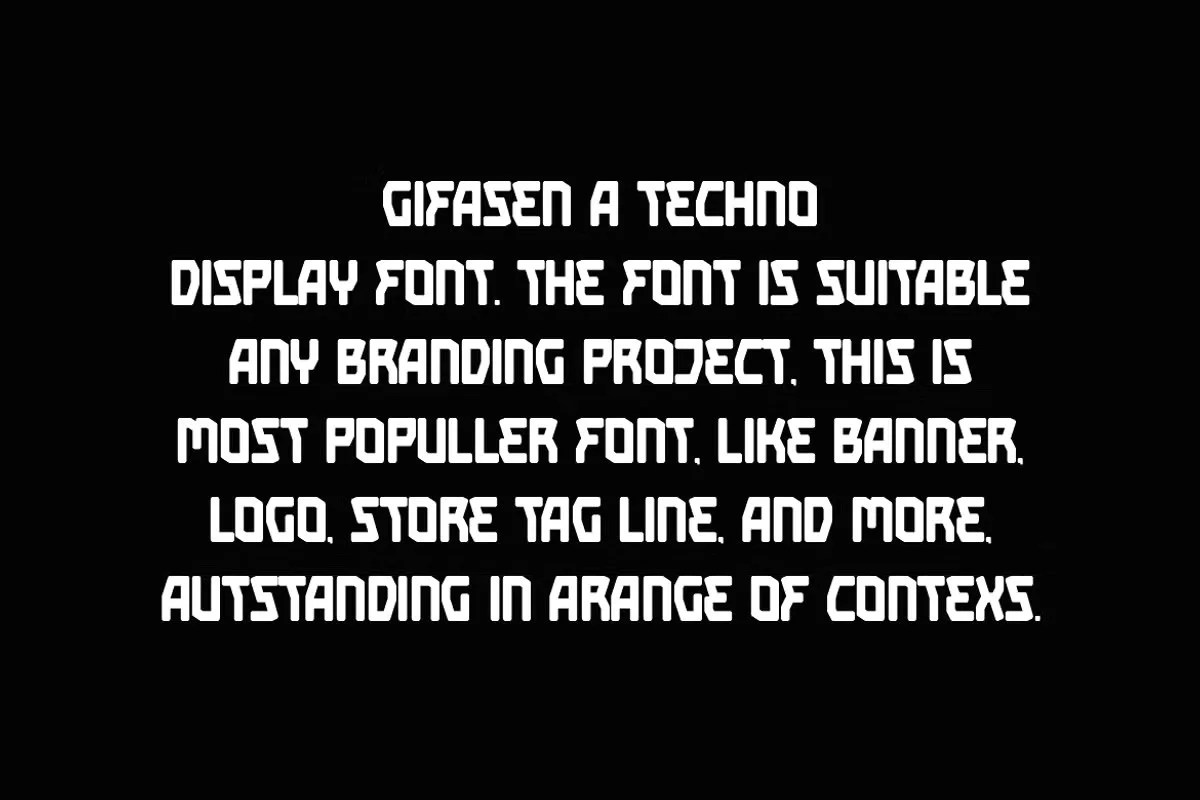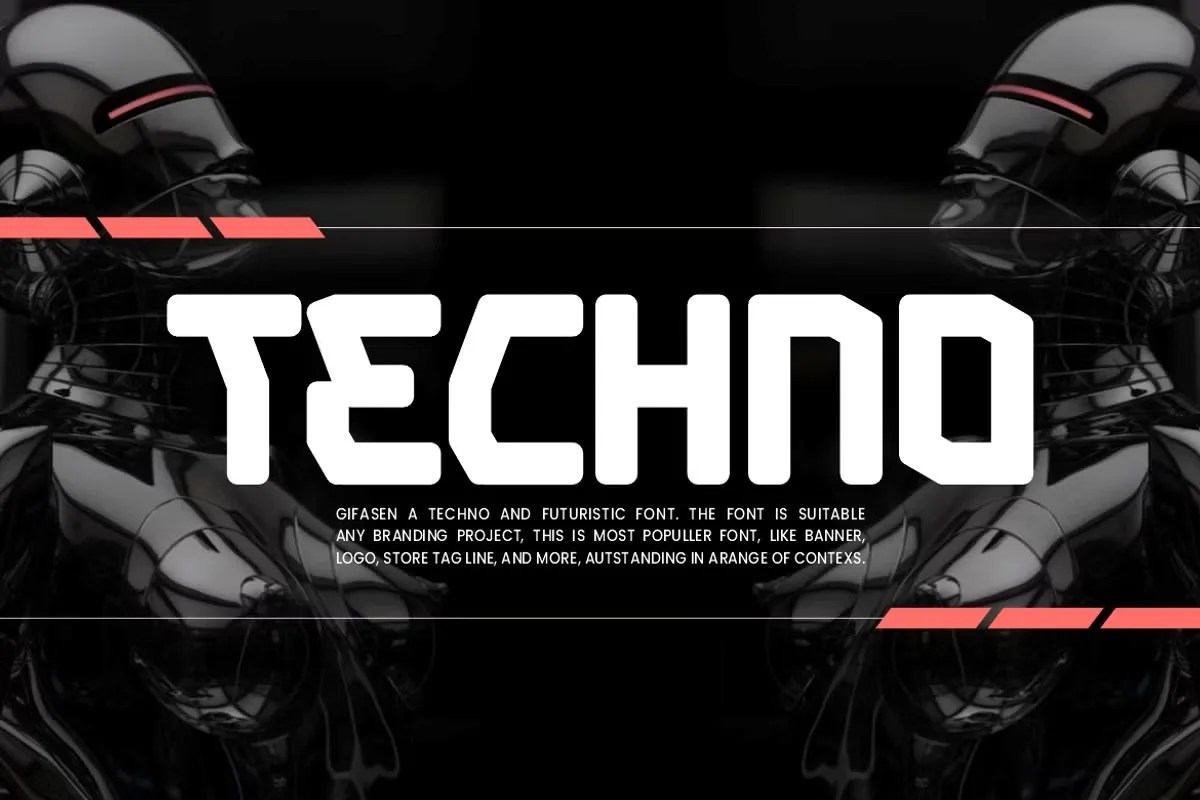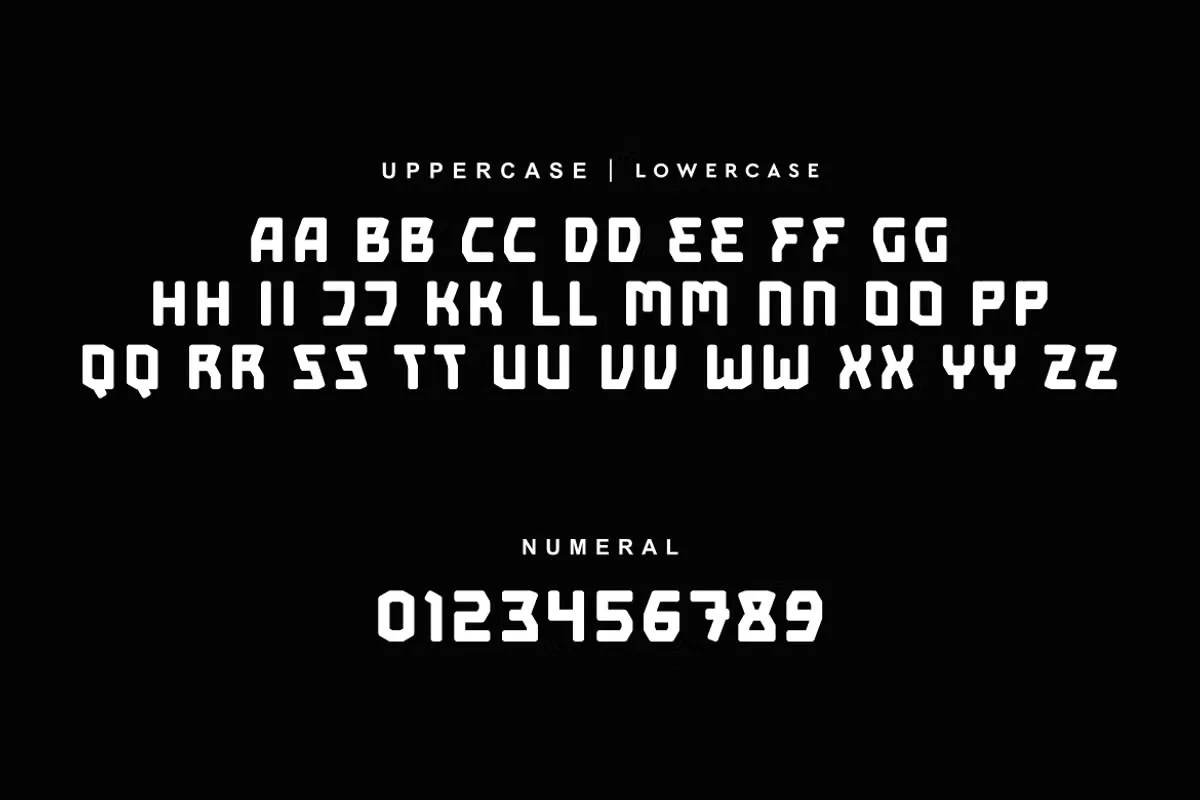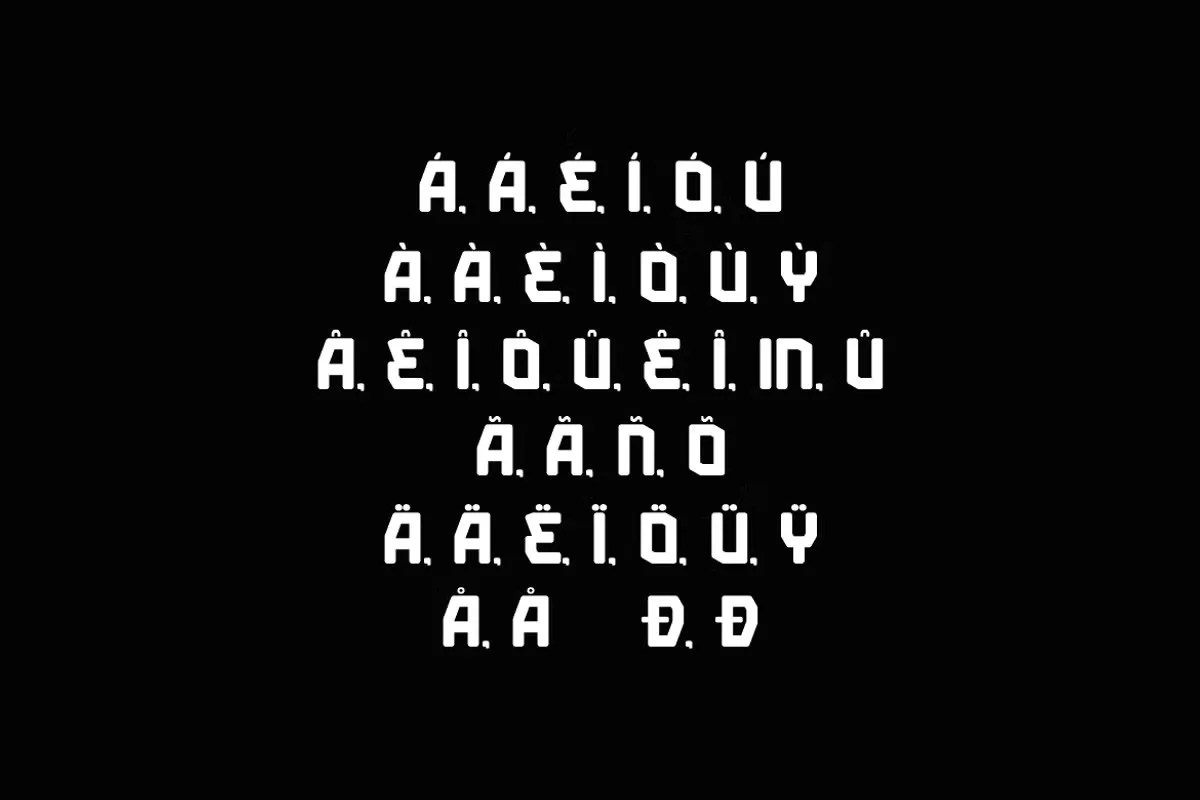
Gifasen by QR Design Studio. This is a clean and professional sans serif font that offers incredible clarity and a timeless, minimalist aesthetic. QR Design Studio created Gifasen for designers who need a reliable and truly versatile typeface. The font communicates with quiet confidence. It works perfectly for a wide range of corporate and creative applications, providing a solid foundation for any design system.
This font is a true workhorse for corporate and digital projects. Specifically, it is a fantastic choice for building a complete brand identity system. It works seamlessly for logos, websites, and internal documents. Furthermore, this professional sans serif font excels in user interface design. Its clarity is essential for creating user-friendly apps and websites that people love to use. Apply it to your reports, resumes, or any document that needs to look clean, smart, and authoritative.
• Clean and professional sans serif style
• Designed for high readability and clarity
• Ideal for corporate branding, UI/UX, and print
• Offers a timeless and minimalist aesthetic
Gifasen